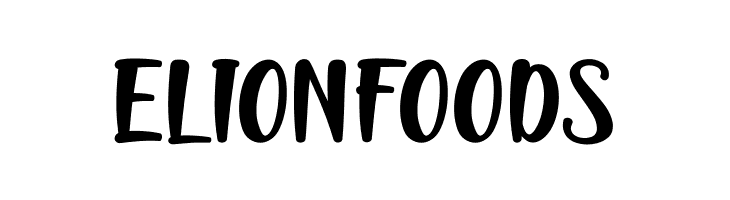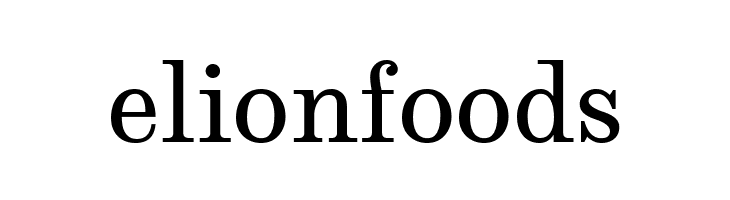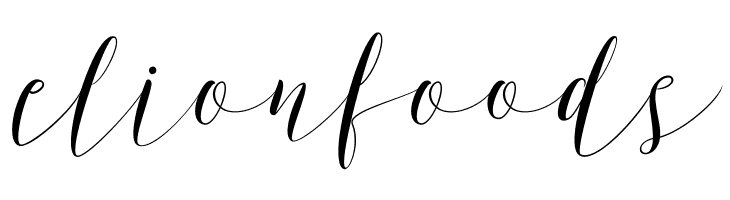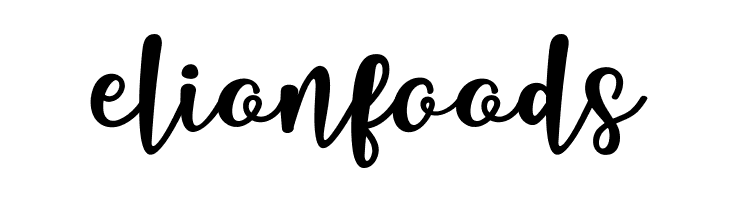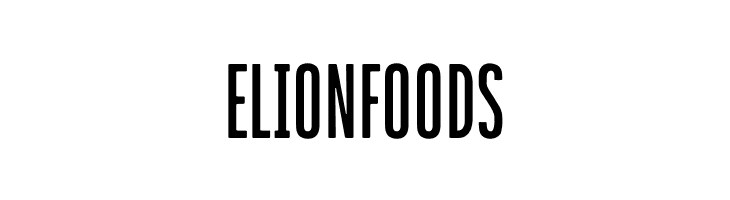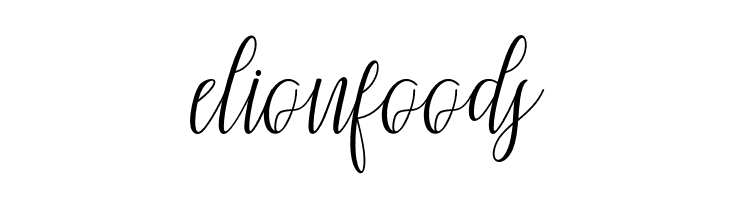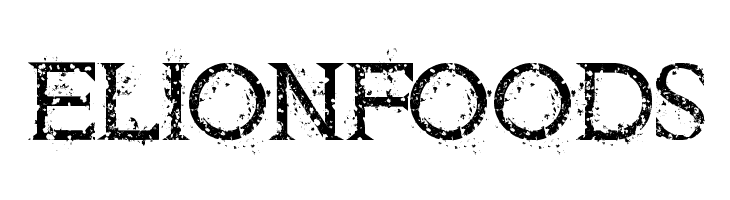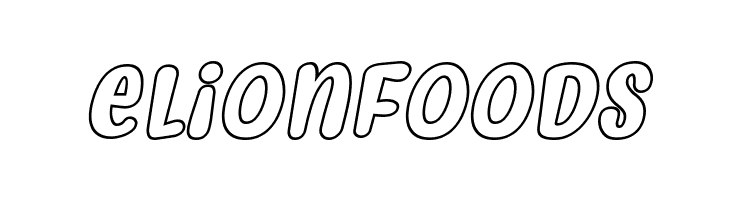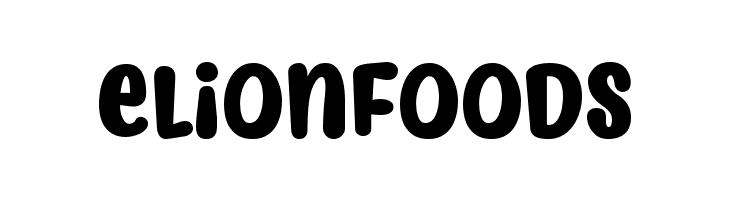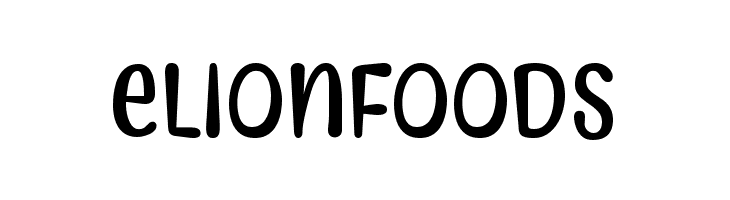
• Mukta Mahee Light
A modern sans-serif font with geometric shapes and uniform strokes.
• Mukta Mahee Medium
A clean, modern typeface with balanced proportions and excellent readability.
• Mukta Mahee Regular
A modern sans-serif typeface with clean lines and balanced proportions.
• Mukta Mahee SemiBold
A clean, modern sans-serif font with a semi-bold weight and balanced proportions.
• Mundane Nouveau
A tall, narrow, and modern font with clean lines and a cohesive style.
• Munson
A classic serif font with high contrast and elegant serifs.
• Munson
• Munson Bold
A bold serif font with strong, classic lines and pronounced serifs.
• Munson Bold Italic
A bold, italic serif font with strong strokes and elegant slant.
• Munson Italic
An elegant italic serif font with classic, flowing letterforms.
• Munstar Regular
A bold, cartoonish font with playful, monster-like characters.
• Murano
A modern, elegant script font with flowing curves and dynamic strokes.
• Murderess Grunge
• Muscat
A bold, handwritten font with smooth, flowing strokes and a playful style.
• Muskaters
A bold, flowing script font with elegant curves and dynamic energy.
• My Dear Watson Regular
• My December
• MyDarlingScript
A modern, elegant script font with flowing, cursive characters and artistic loops.
• MyDarlingScript
A graceful and romantic script font with decorative swirls.
• MyDecember
• Myfrida
A playful, rounded font with smooth curves and a friendly vibe.
• Myfrida Bold
A bold, playful font with rounded edges and a friendly style.
• Myfrida Bold Italic